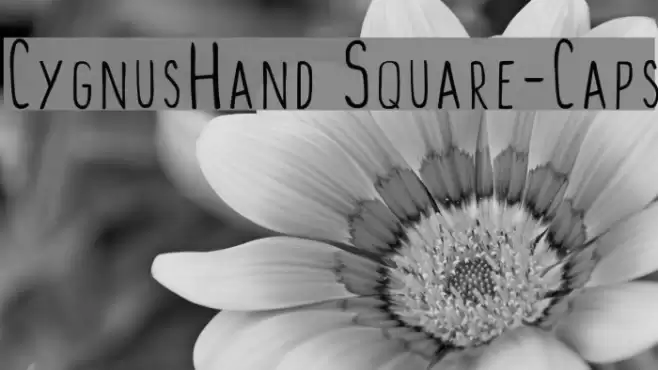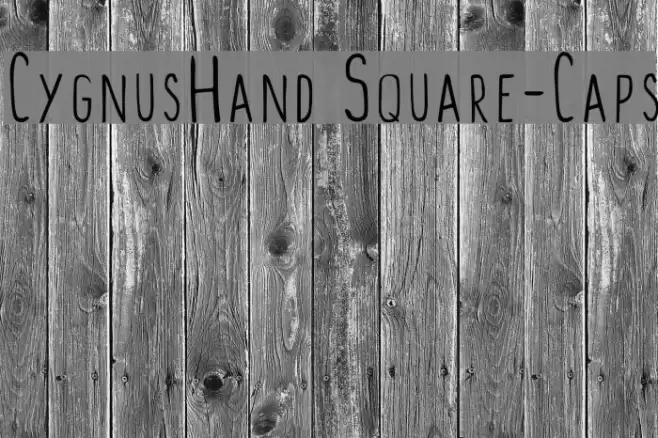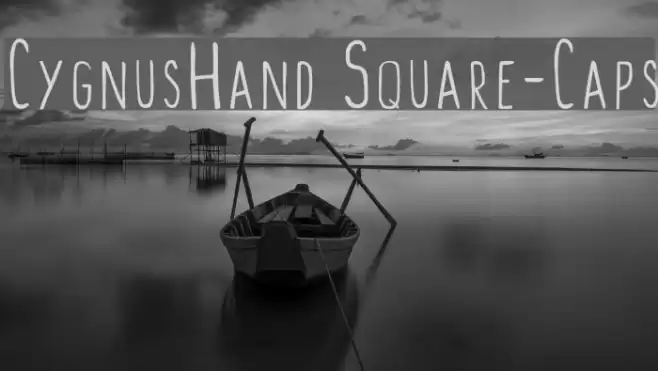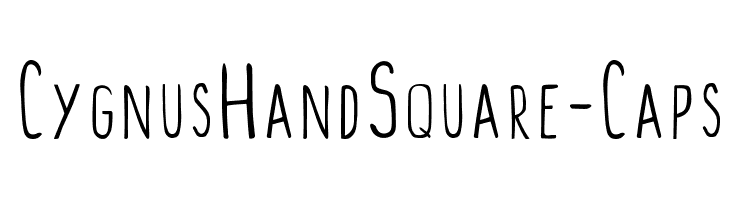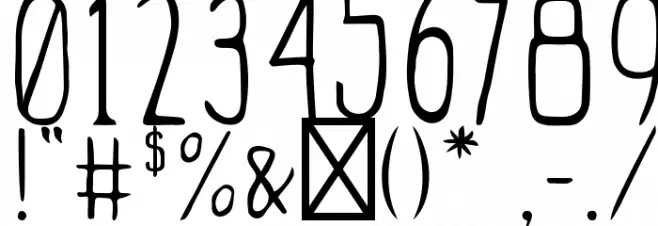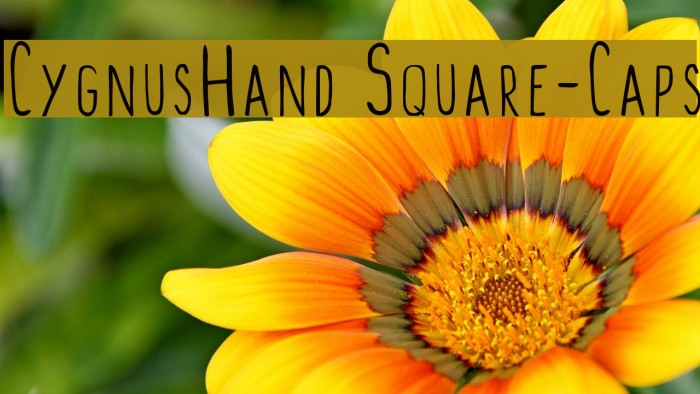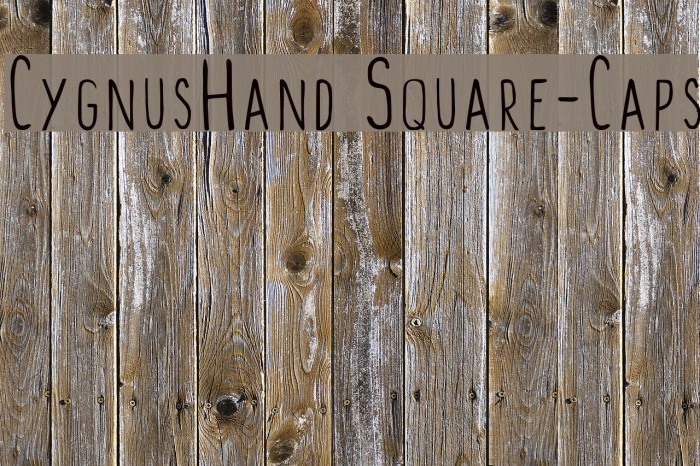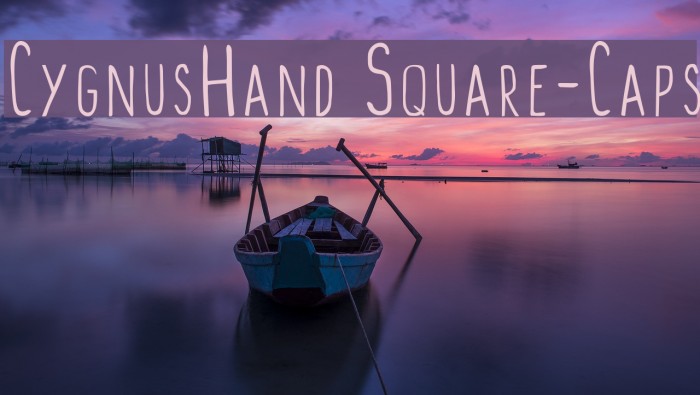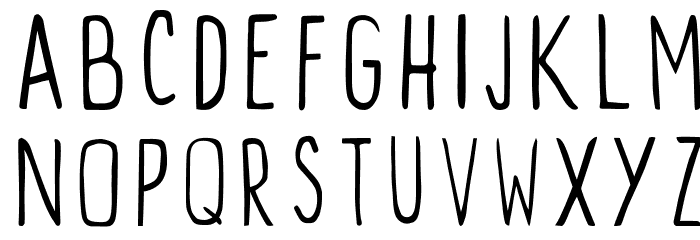
CygnusHand Square-Caps Font
CygnusHand Square-Caps Description
This font features a hand-drawn, casual style with a playful and artistic flair. The characters are tall and narrow, with a slightly irregular stroke that adds a personal touch. The uppercase and lowercase letters maintain a consistent height, creating a cohesive look. The numbers are distinct and easy to read, while the special characters add a unique charm. The overall appearance is both modern and approachable, making it suitable for creative projects that require a personal touch.
A hand-drawn, playful font with tall, narrow characters and a casual style from Uncategorized fonts.
- Proposed Projects: Ideal for greeting cards, invitations, posters, and creative branding projects.
- Overall Style: Casual, Artistic
- Use Case: Headlines, Creative projects, Branding